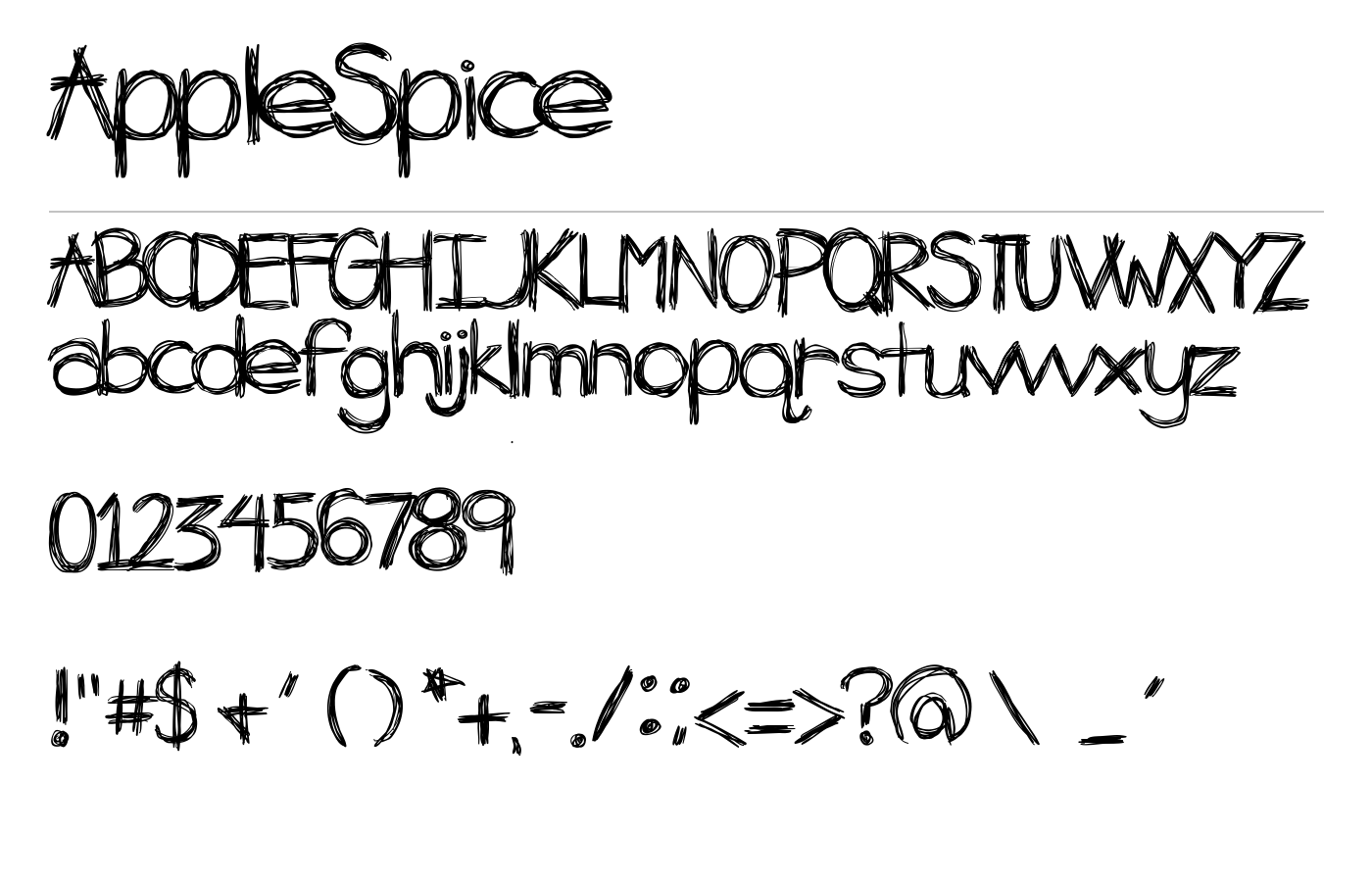
AppleSpice is a playful, hand-drawn sans serif font with an energetic and sketchy style that feels casual and creative. Its irregular, textured strokes give it a lively, informal character perfect for designs that want to convey fun, friendliness, and originality. This font works best for headlines, logos, posters, and projects that benefit from a whimsical, handmade touch.
AppleSpice Font